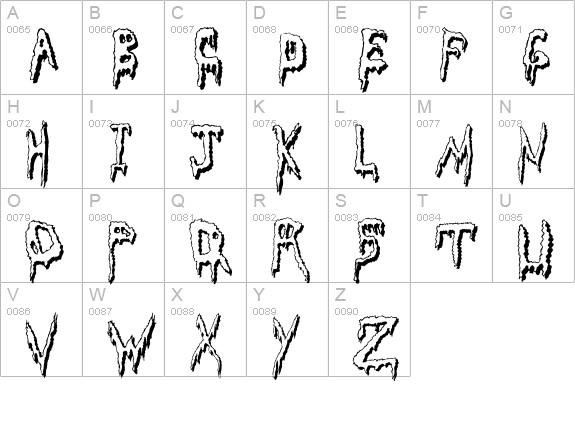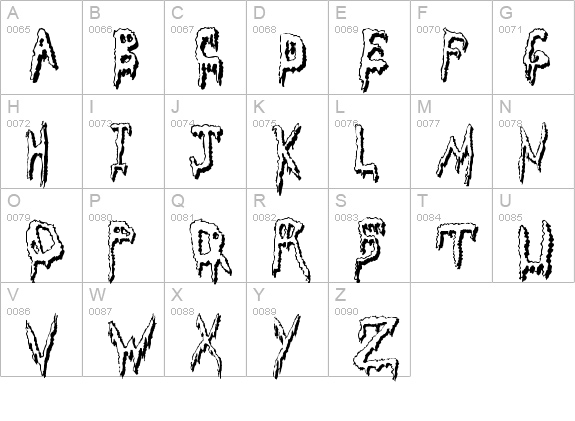
Grossout Shadow Font Details
Introducing Grossout Shadow font, a bold and grungy typeface that will make your designs stand out with its unique and edgy style. This font is perfect for creating eye-catching posters, album covers, and more. The Grossout Shadow font features a creepy and mysterious vibe, making it ideal for projects that require a touch of darkness. Best of all, Grossout Shadow is available for free download at FontsMarket.com. This means you can easily add this striking font to your collection without any cost. Don't miss out on the opportunity to enhance your designs with the captivating Grossout Shadow font today!